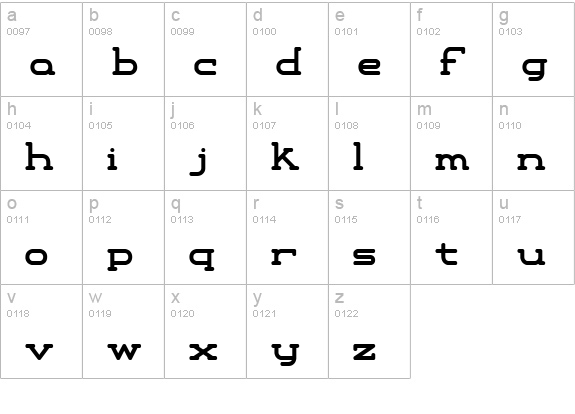
Xipital BRK Font Details
Xipital BRK font is a unique and eye-catching typeface that combines modern aesthetics with a touch of vintage charm. Its bold and angular lines make it perfect for creating striking headlines and graphic designs that demand attention. The geometric shapes and sharp edges of Xipital BRK font give it a strong and confident presence on the page. This versatile font is ideal for a wide range of design projects, from branding to editorial layouts to social media graphics. Whether you are looking to add a modern edge to your design or make a bold statement, Xipital BRK font is sure to make an impact. Best of all, Xipital BRK font is completely free to download at FontsMarket.com. So go ahead and give your designs a fresh new look with this stylish and dynamic typeface today!